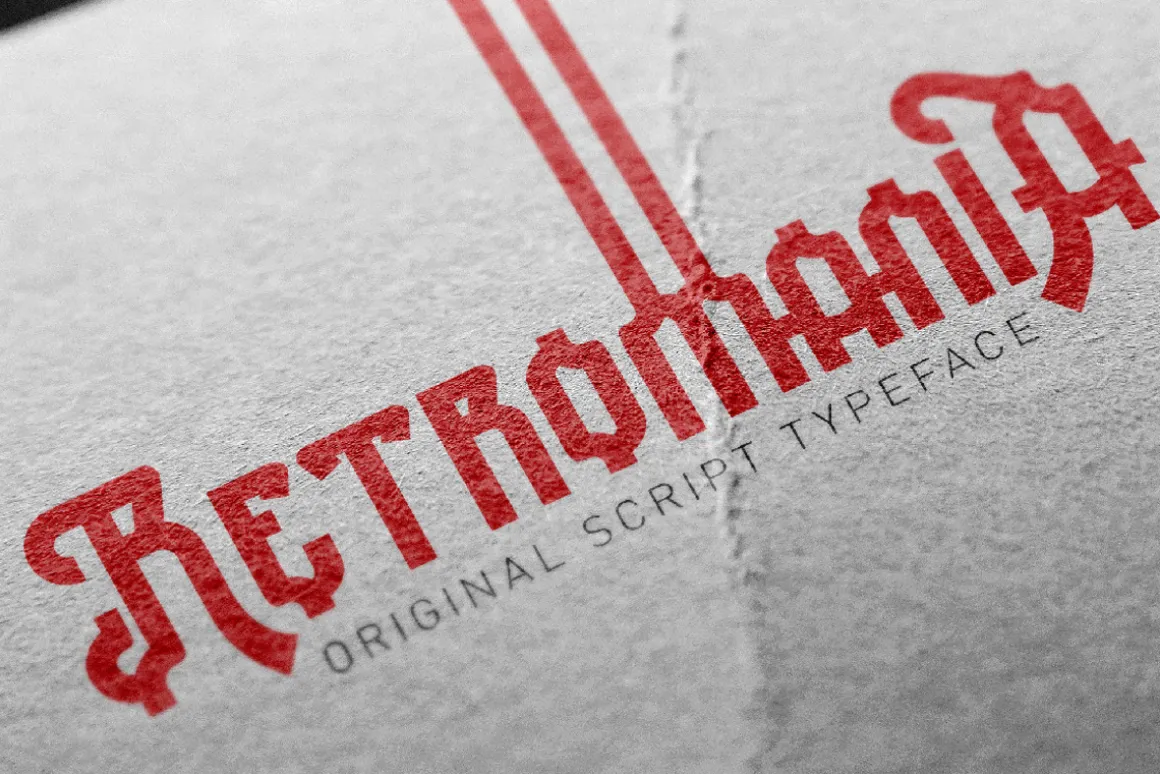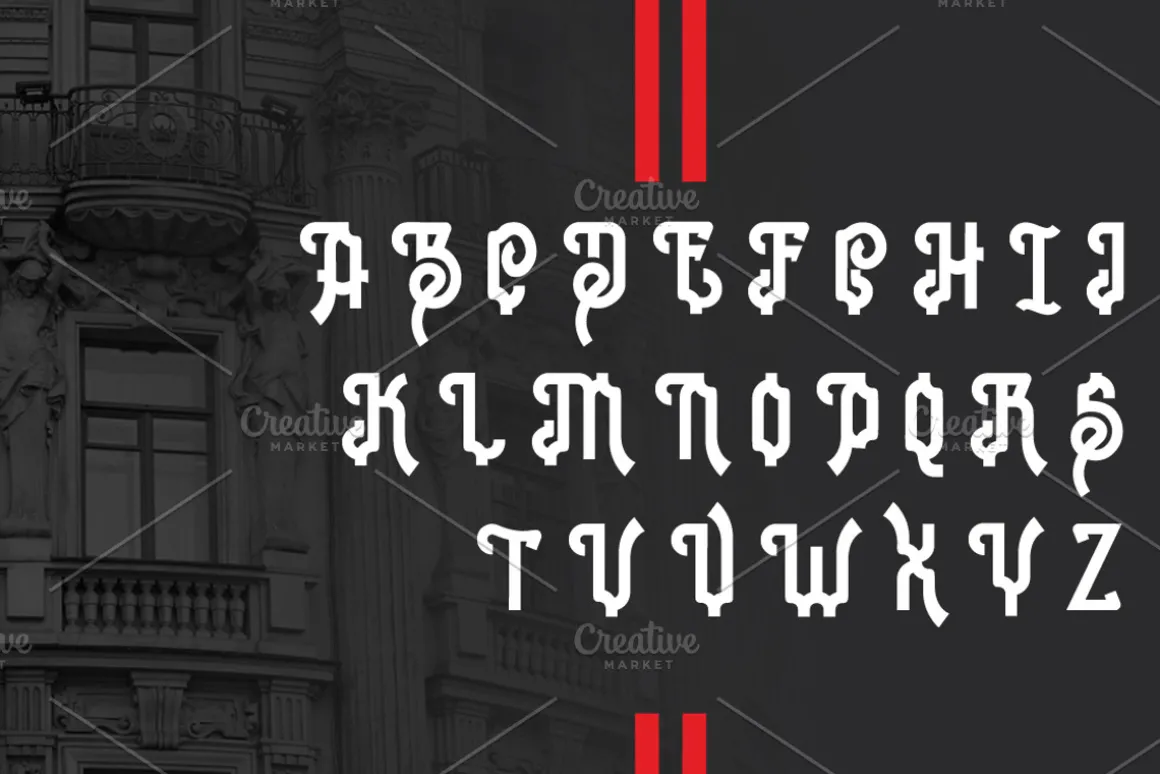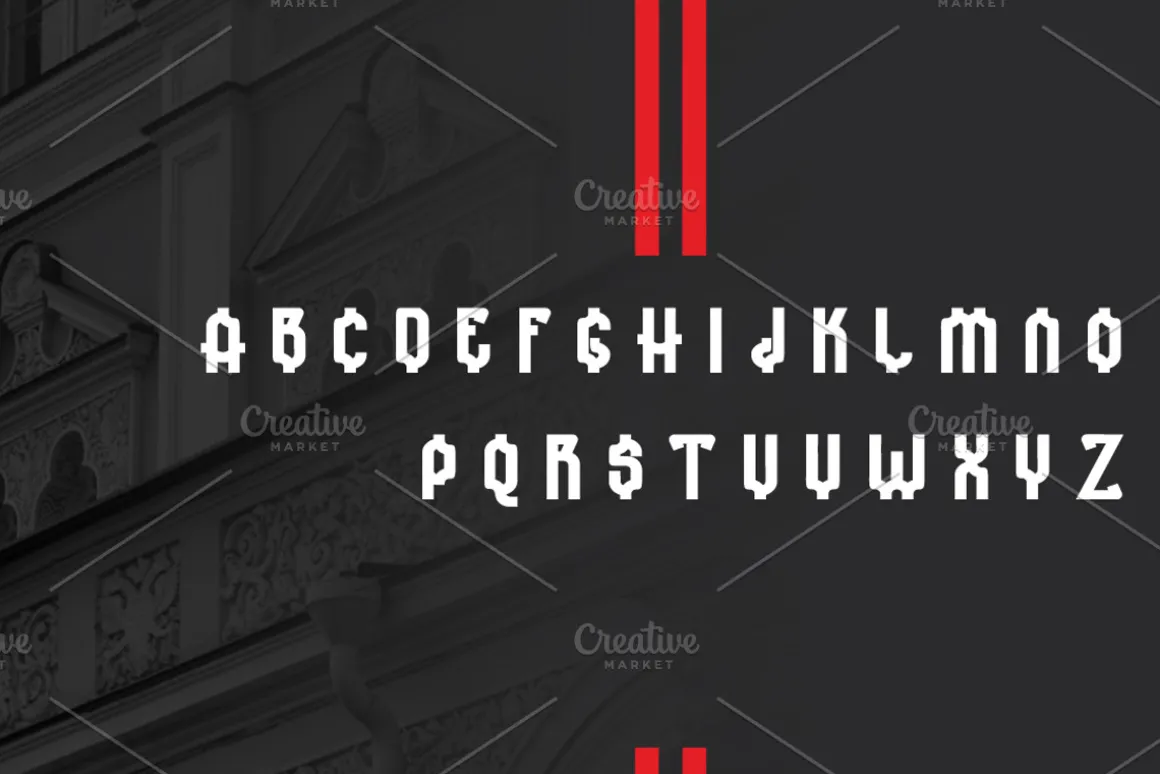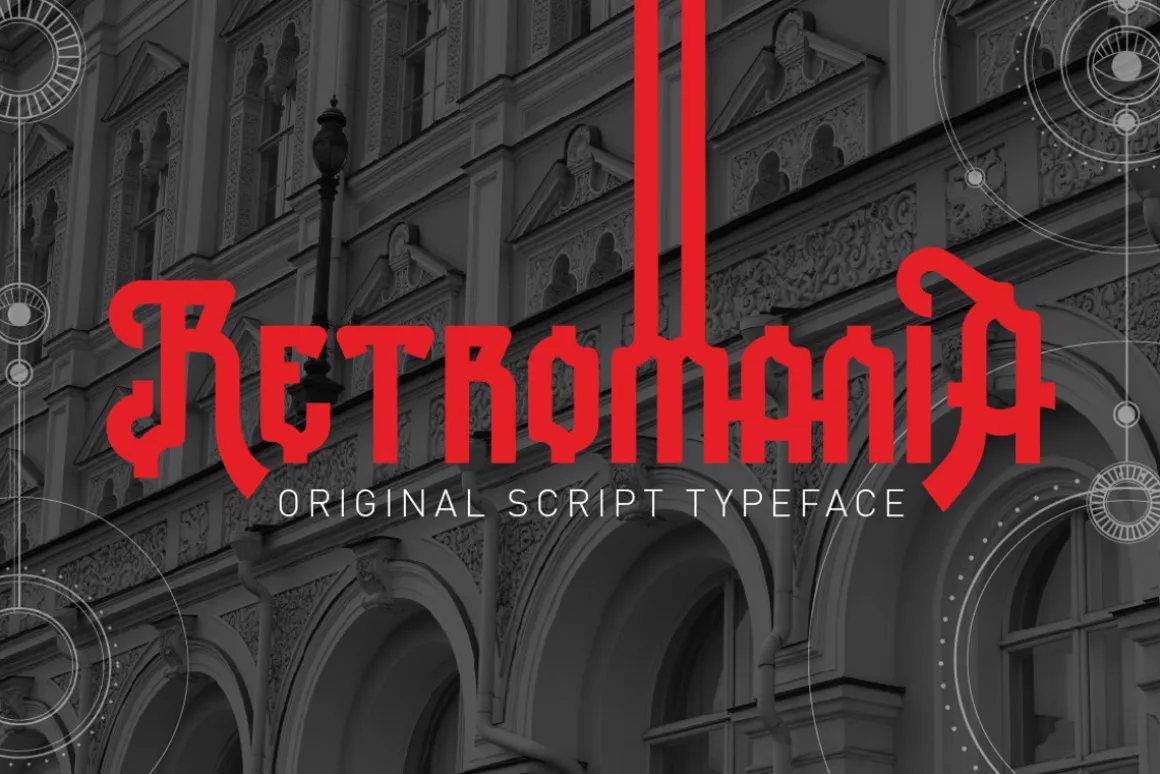
Retromania Original Script Typeface is a new retro-modern, contemporary, classic and elegant touch. perfect for logos, labels, invitations, product packaging, headers and whatever your need.